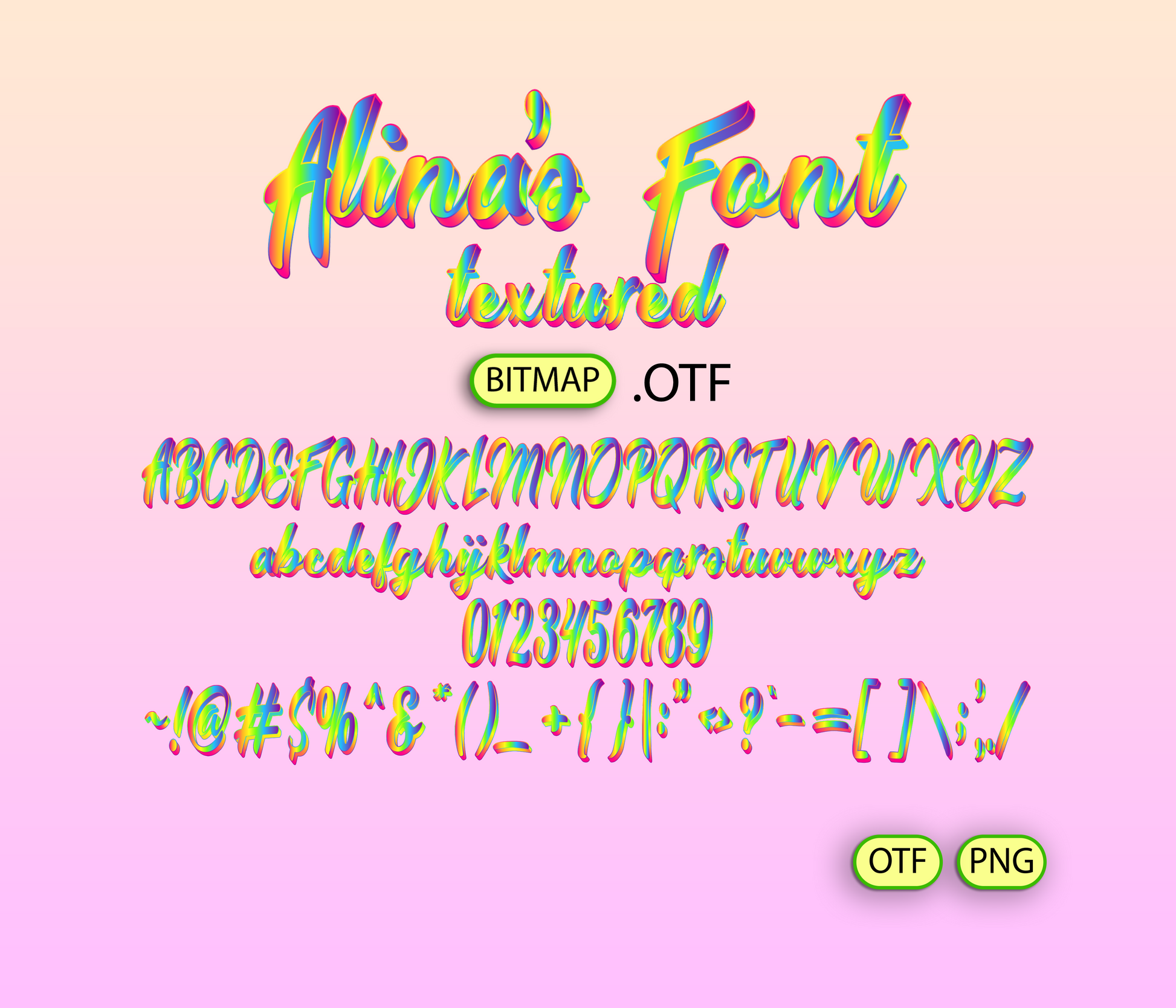
Prismatic Paradise Font Textured
Step into the spectacular realm of technicolor wildlife with our Prismatic Paradise font, capturing the essence of ultra-bright animals and dreamlike adventures. Perfect for vivid art enthusiasts, holographic design lovers, event organizers, and creators, this font brings the electrifying, multi-hued spirit of retro stationery magic to your projects. Create dazzling materials, merchandise, or digital content with the luminous energy of day-glo creatures and enchanted landscapes.
Our Prismatic Paradise font features fluorescent, psychedelic lines and high-saturation characters reflecting the universe of prismatic creature illustrations. Ideal for:
- Event Promotions: Create iridescent invites, posters, and banners for nostalgia parties, youth celebrations, and themed gatherings that capture the spirit of hyper-colorful animal art
- Merchandise Design: Perfect for t-shirts, posters, and accessories that showcase the unmistakably vibrant aesthetic of holographic jungle friends
- Digital Media: Enhance websites, blogs, and social media with glowing headers and graphics that express the wonder of ultra-saturated illustrations
- Nostalgic Content: Add authentic flair to fan works, 80s-90s inspired projects, and creative designs related to phosphorescent creature collections
- Personal Projects: Bring color-burst brilliance to scrapbooking, DIY crafts, and home decor inspired by the world of vivid fantasy animal art
Our font pays tribute to the beloved world of radiant school supply artistry, empowering your designs with its color-saturated and joyful spirit. Whether crafting promotional materials, designing merchandise, or adding a playful touch to personal projects, this font communicates the dazzling essence of bedazzled creature illustrations. Ready to inject color-explosion magic into your creations? This font is your key to eye-catching, impactful design.